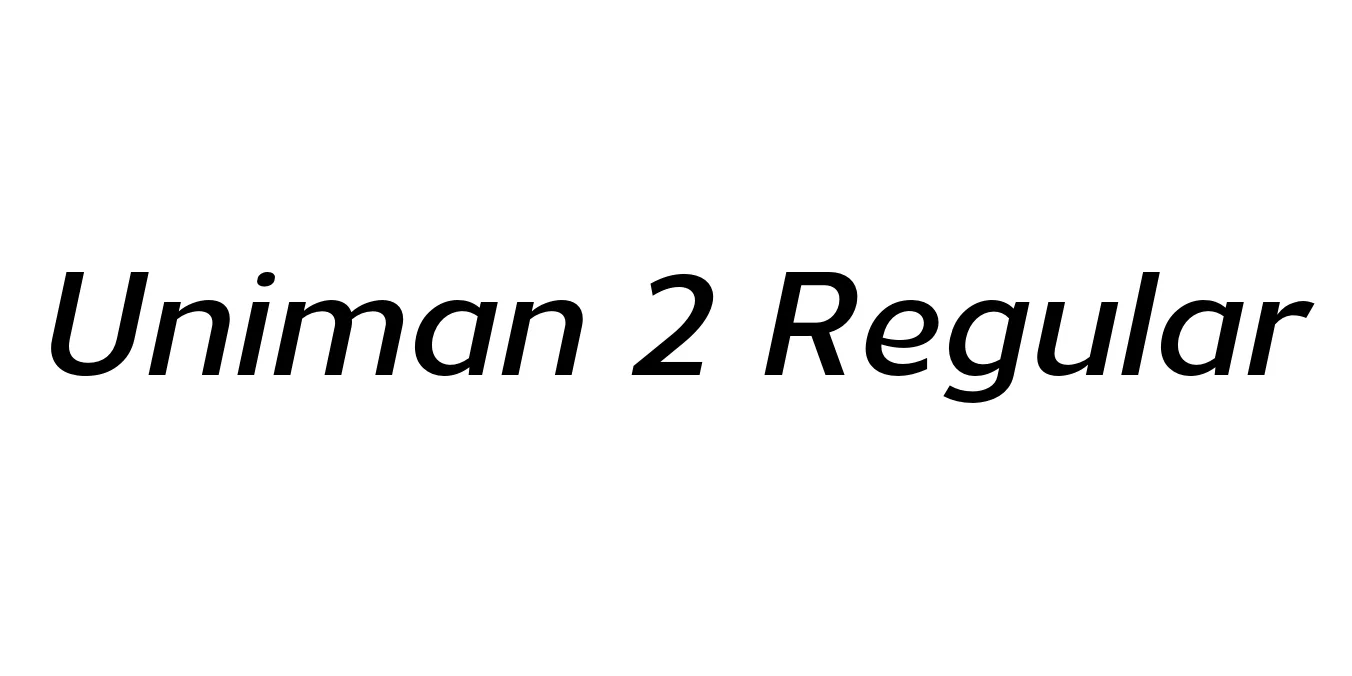
Uniman 2 Regular
Designed by Mücahit Vural
Uniman 2 Regular is a sophisticated sans-serif typeface crafted with a focus on geometric balance and contemporary clarity. As an evolution of the original Uniman series, this version introduces more refined stroke weights and optimized kerning, allowing for exceptional legibility across both digital and print mediums. Its neutral yet authoritative tone makes it a reliable choice for designers seeking a professional look without sacrificing visual appeal.
The font is characterized by its clean lines and open counters, which prevent visual clutter even at smaller point sizes. Frequently utilized in modern user interfaces and corporate documentation, Uniman 2 Regular stands out for its versatility. Whether used for body copy or subtle headings, it provides a seamless reading experience that complements a wide variety of design aesthetics, from minimalist branding to complex high-tech layouts.
Uniman 2 Regular Best Uses
Highly effective for buttons, menus, and dashboard data due to its clear structure.
Great for establishing a trustworthy and modern brand voice in business stationery.
Works well in magazines and reports for long-form content that requires high readability.
Excellent for social media graphics and web banners where clarity is paramount.